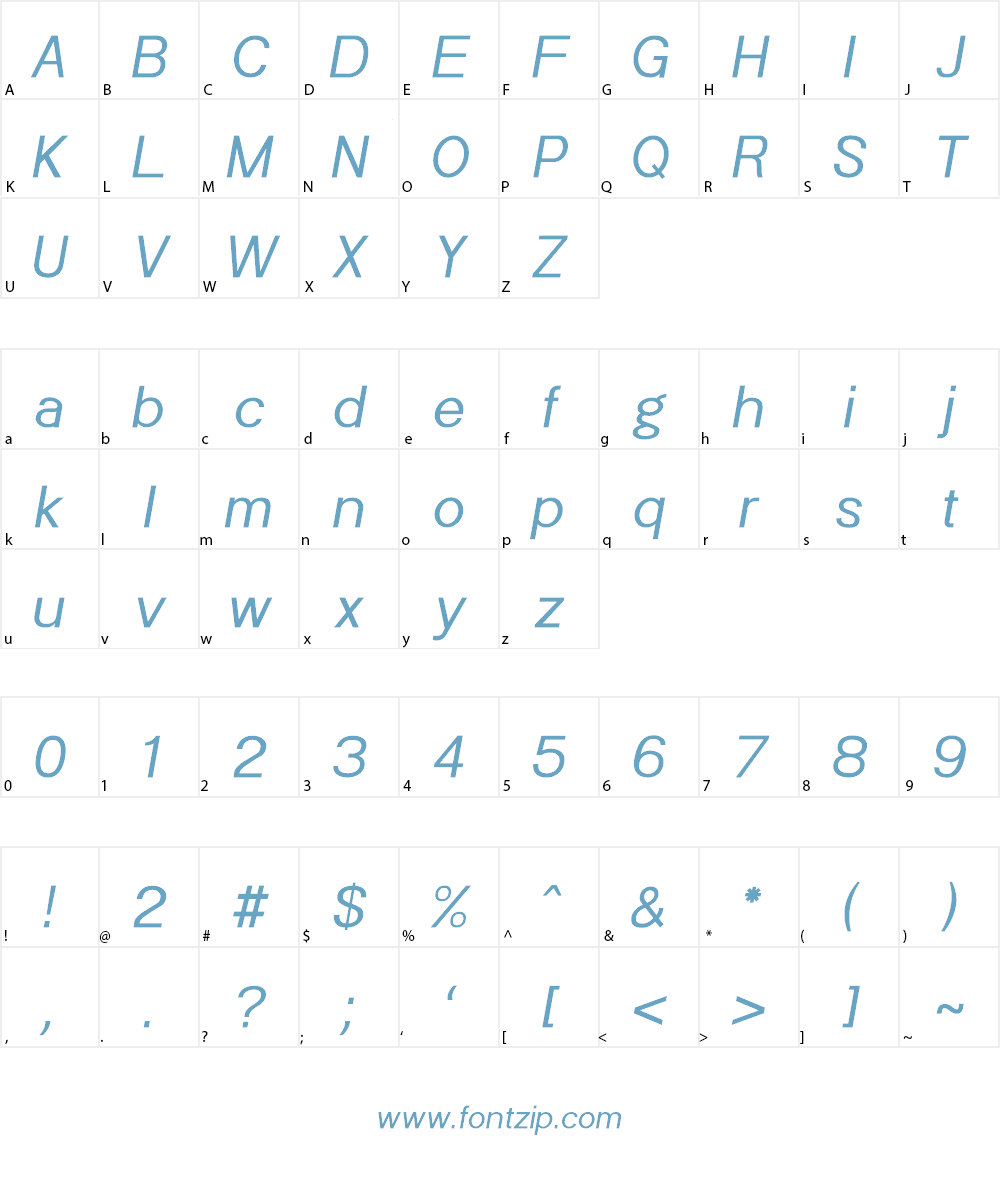
POE New Sans is a new version of the other POE Sans Pro font, and the title of this font is based off of Stanley Morison's Times New Roman font designed in 1931. POE New Sans was designed in 2016 by me. And there are four styles in this zip set.